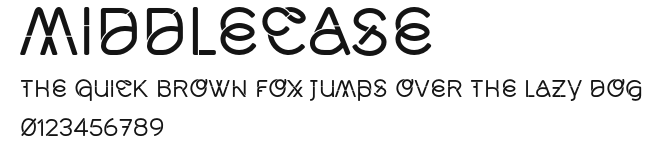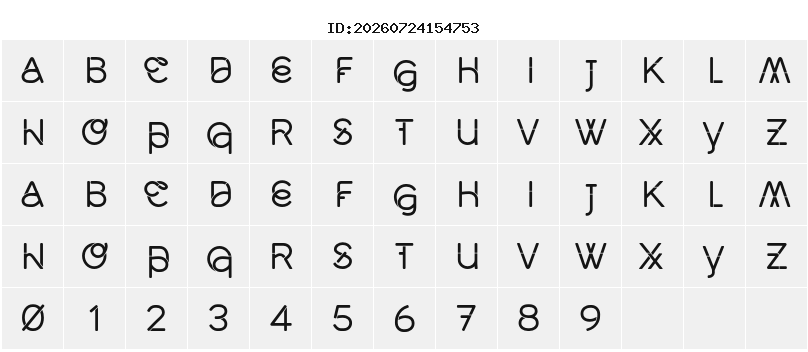
• Font Name: Middlecase
• Font Style: Regular Solid
• Full Font Name: Middlecase Regular-Solid
• Designer: Morice Kastoun
• Manufacturer: Morice Kastoun @ HeadFirst Design
About Middlecase.otf
Middlecase.otf is a modern, elegant sans-serif font designed for ultimate readability and visual harmony. Perfect for branding, headlines, web design, and print materials.